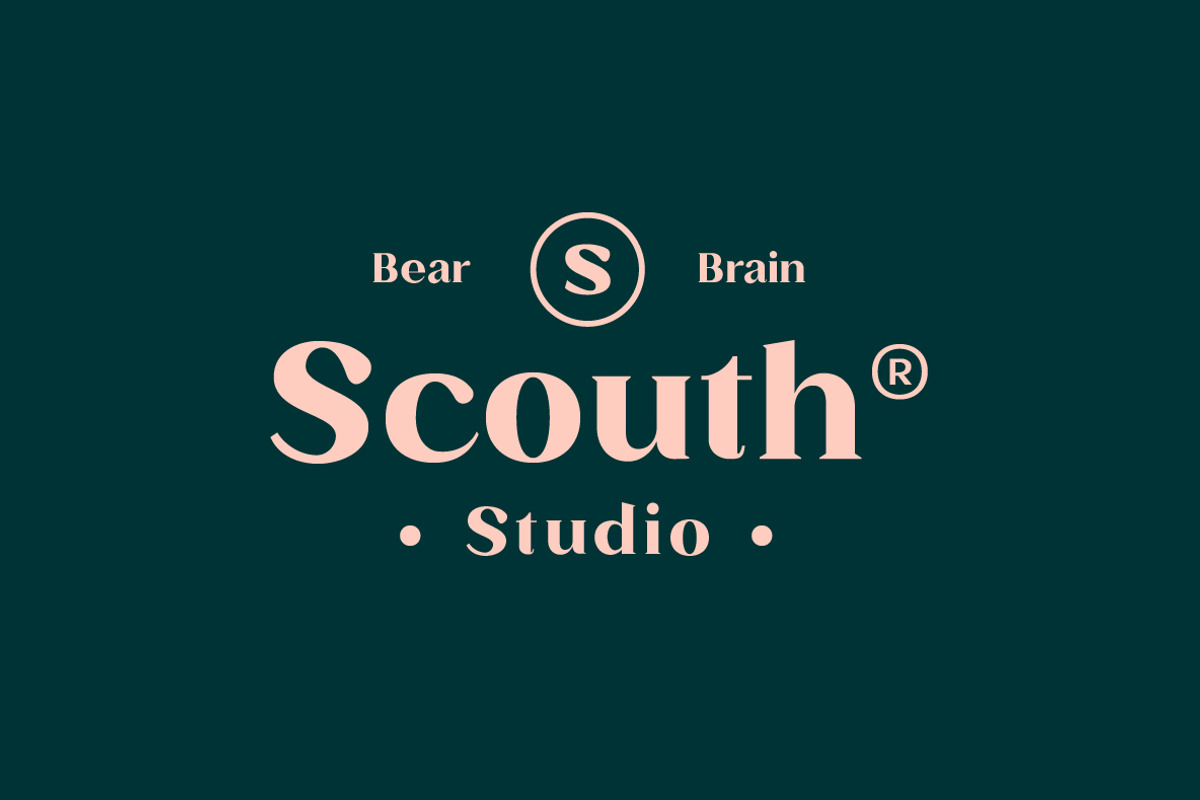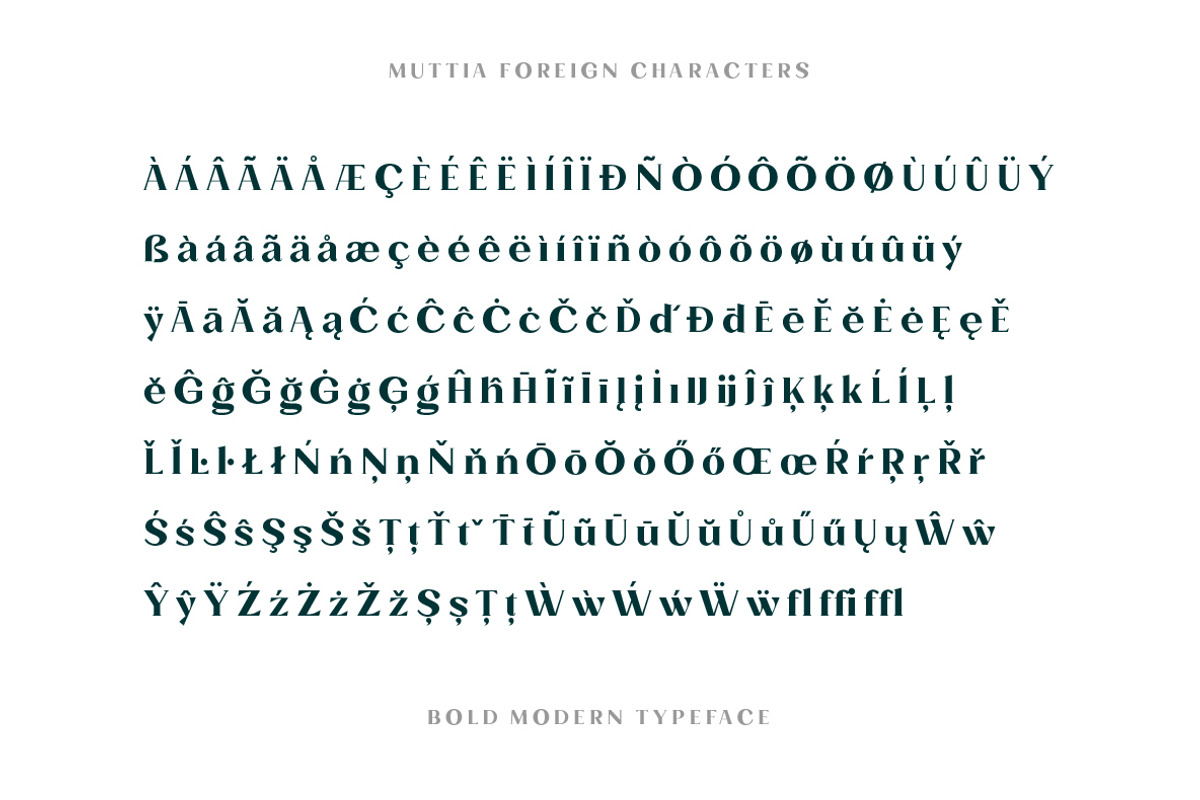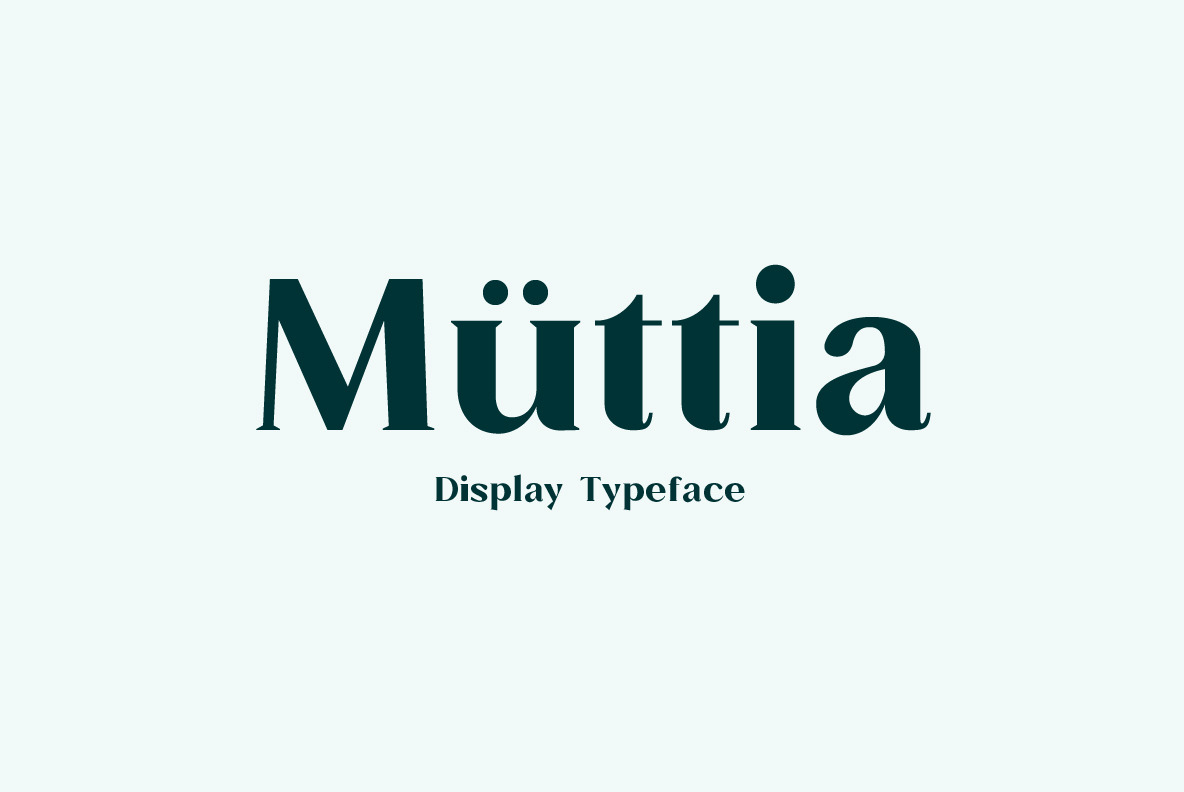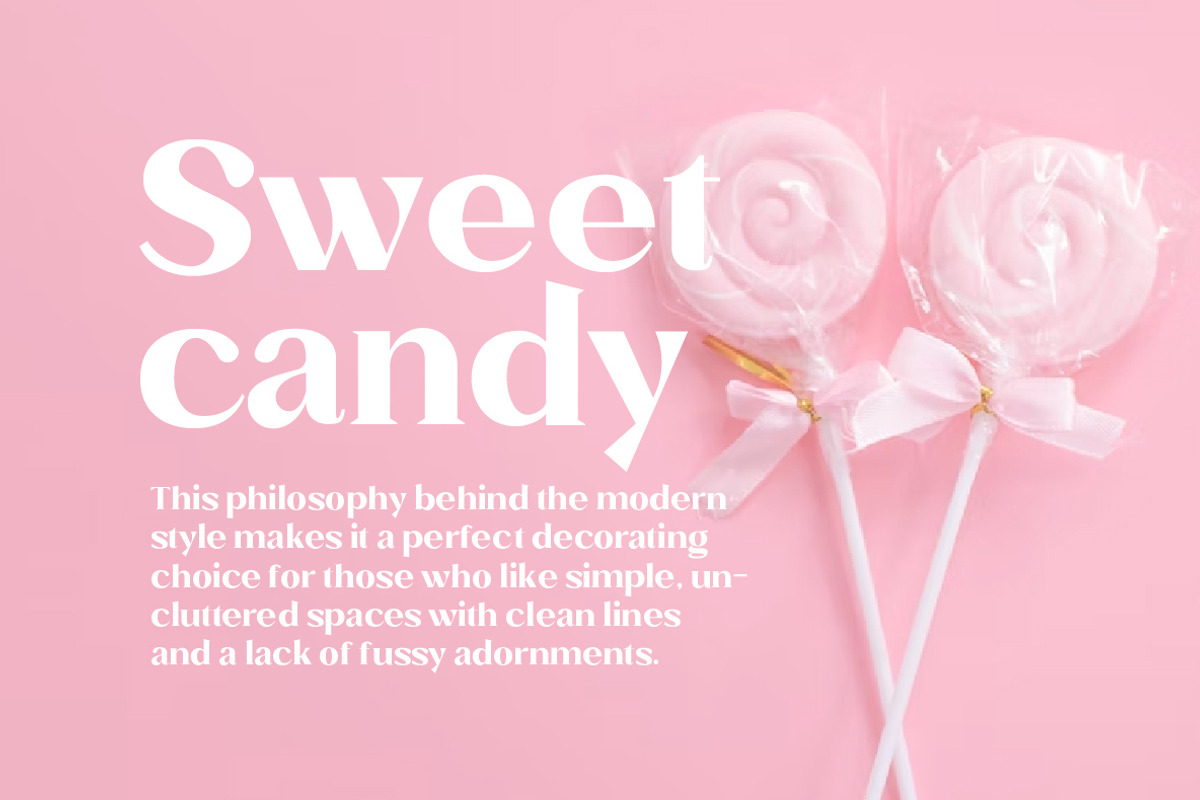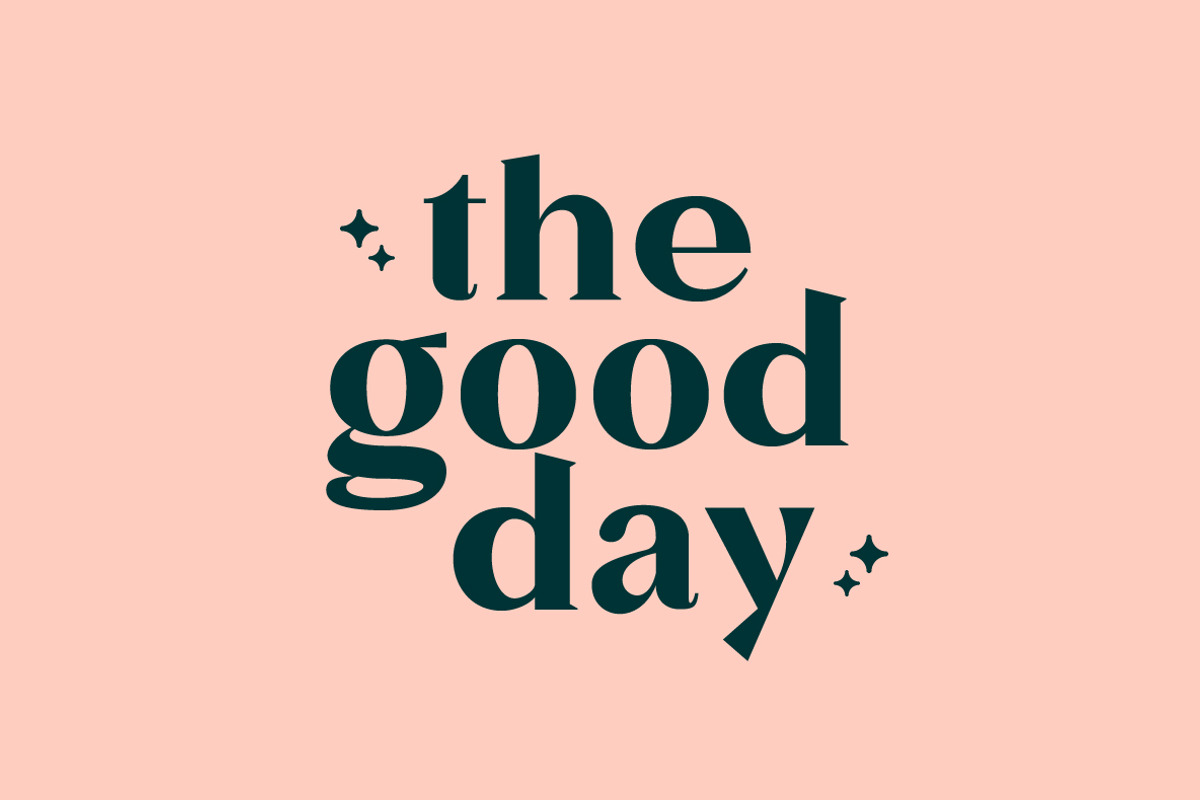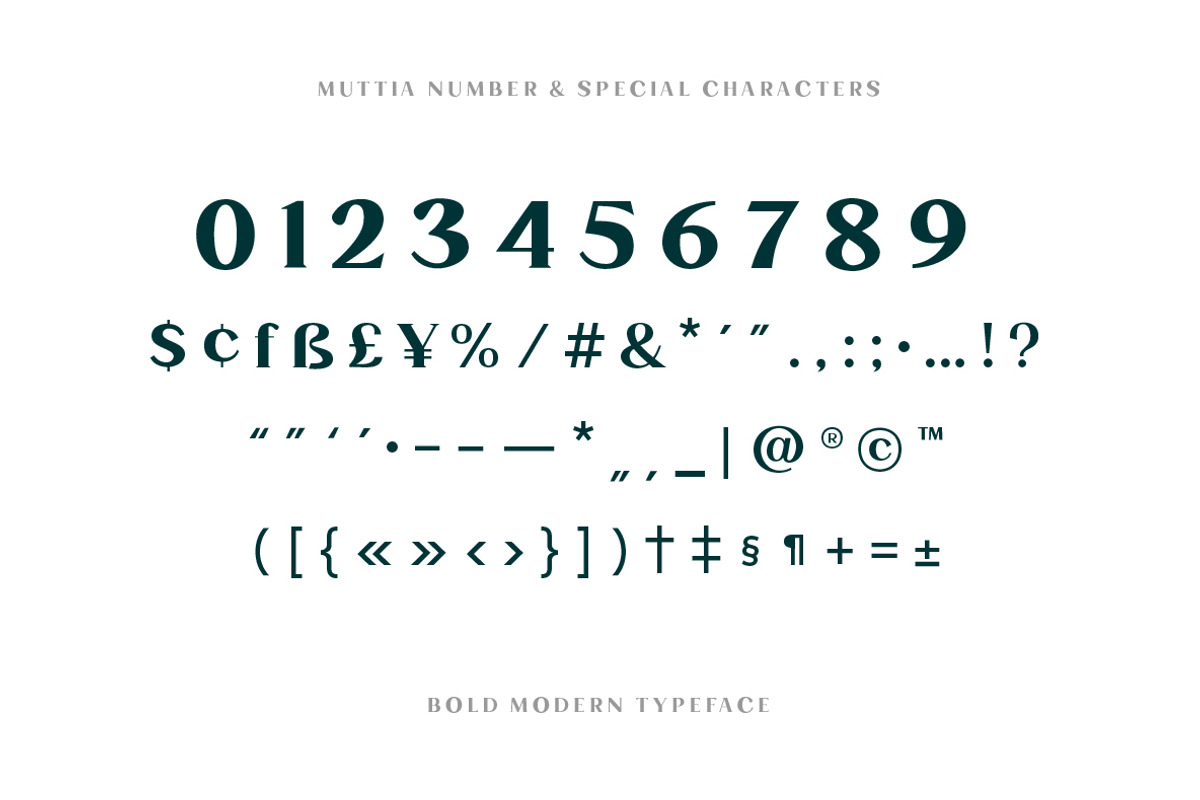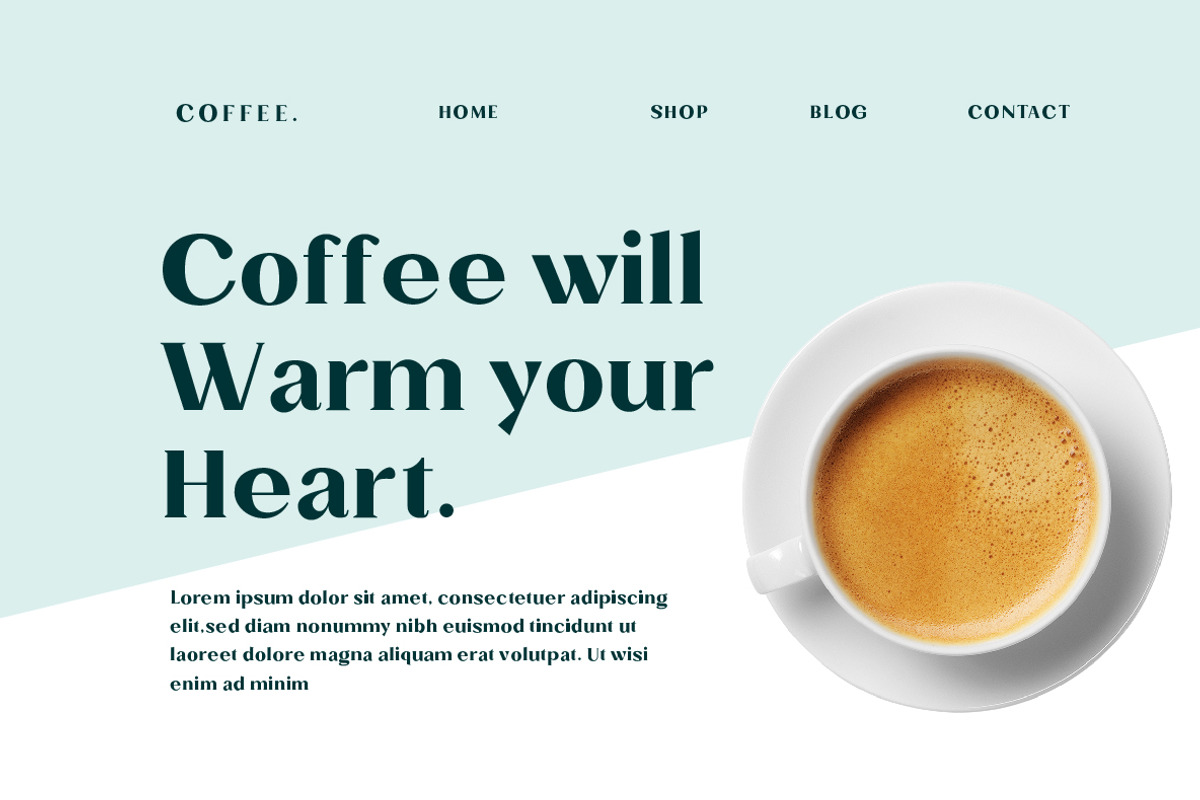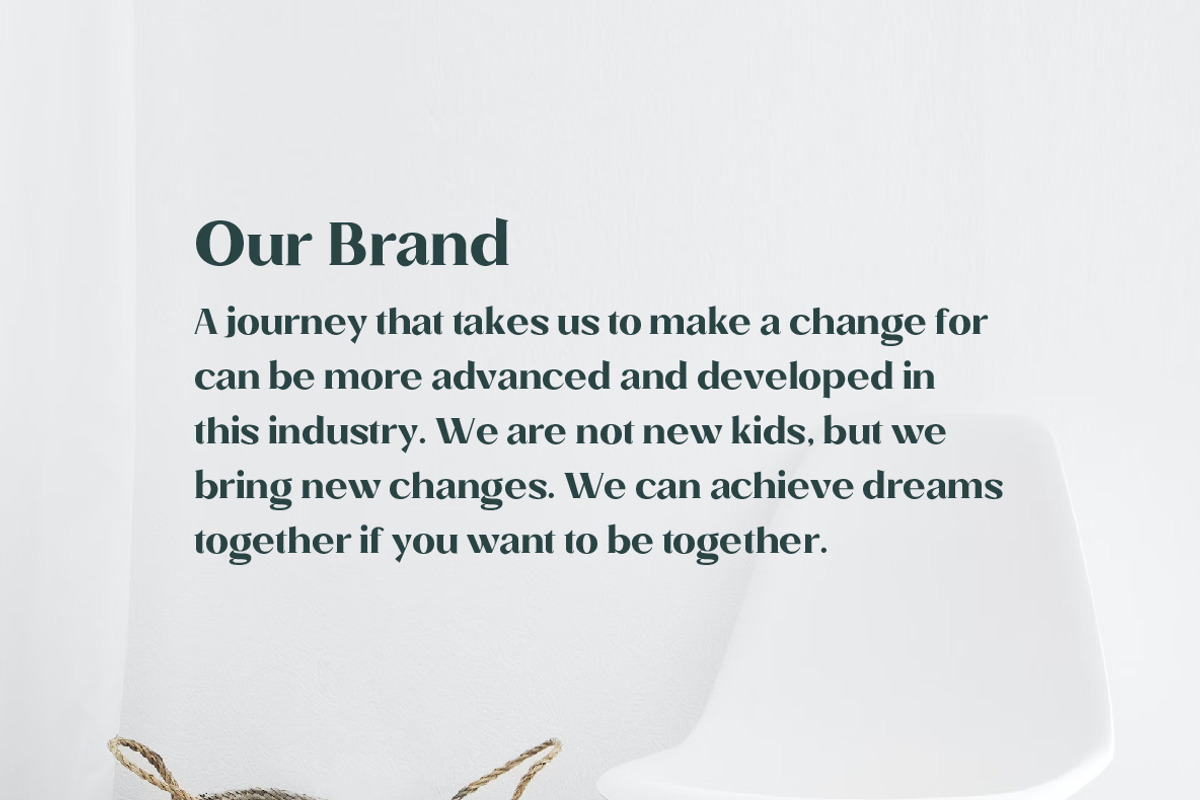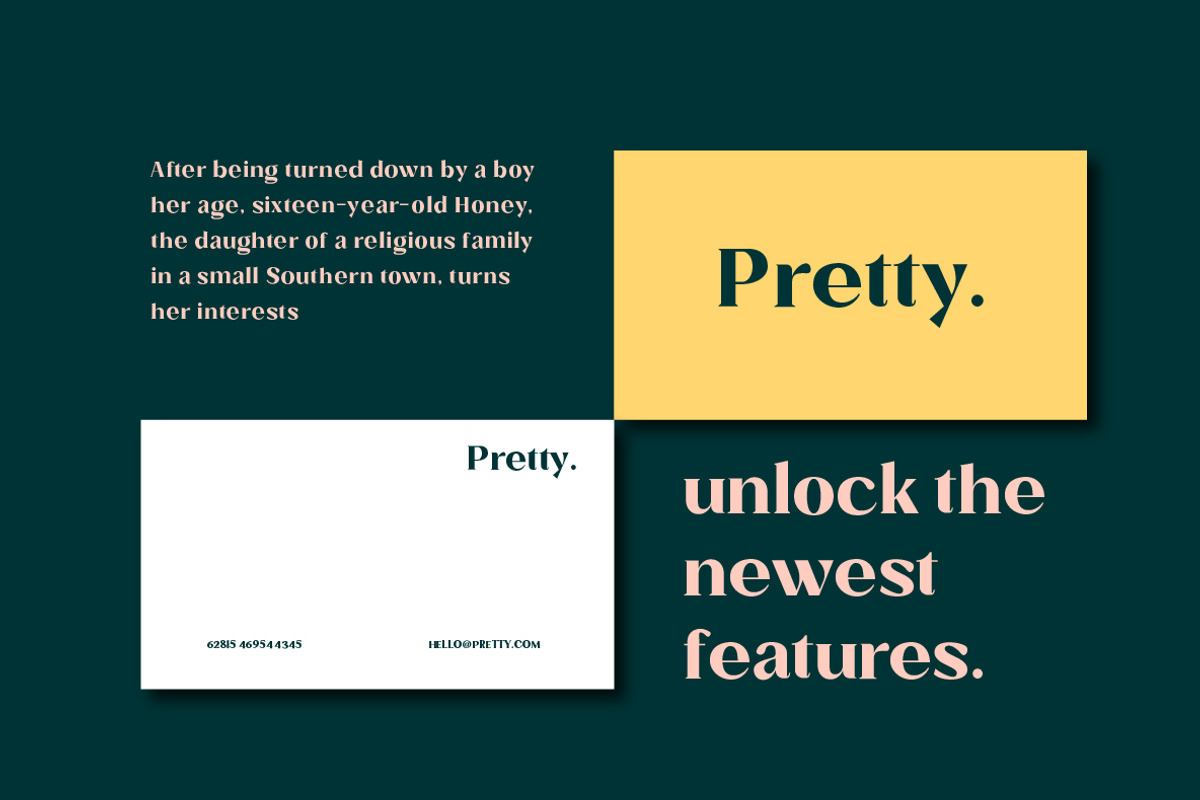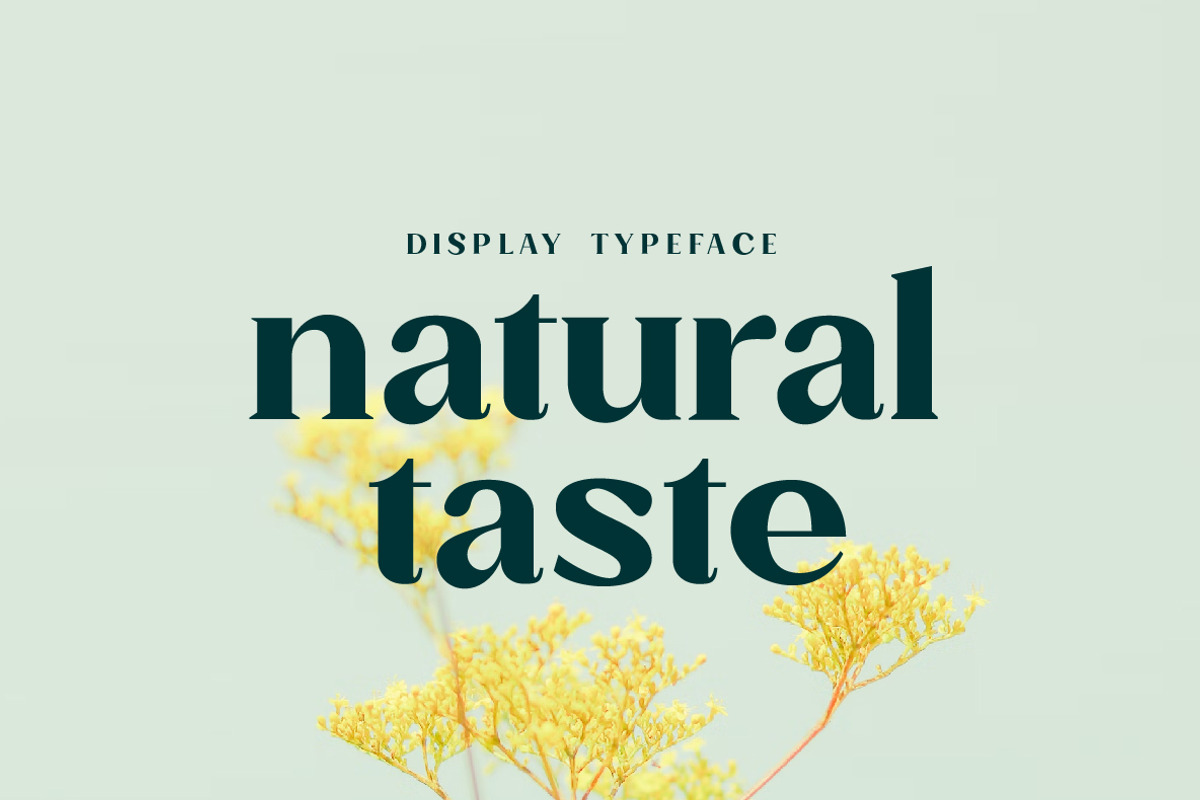
Muttia Display Typeface
Muttia is a beautifully distinctive Serif typeface that will add instant elegance to any branding, advertising, logo, packaging, title, or headline. You don't need to overdo it with embellishments; just use the fonts in different sizes and layouts, and you'll have a truly stunning piece of art!